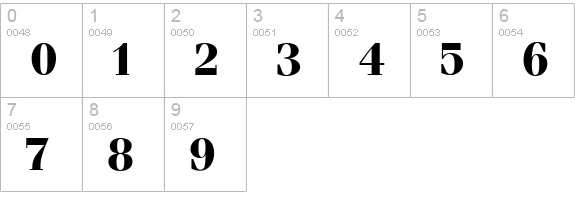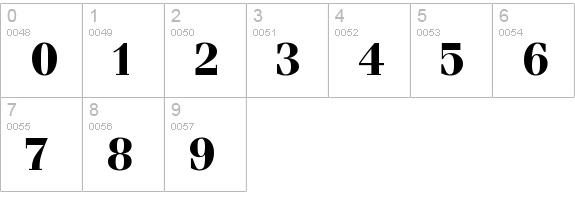
Fenice Bold Font Details
Fenice Bold is a strong, high-contrast variant in the Fenice typeface family \xE2\x80\x94 well suited to headlines, attention-grabbing titles, and strong calls-to-action.
Fenice Bold font is a striking and versatile typeface that exudes confidence and elegance. With its bold and modern design, Fenice Bold is perfect for creating eye-catching headlines, posters, branding materials, and more. The clean lines and sharp edges of this font make it ideal for both digital and print projects, adding a touch of sophistication to any design. What makes Fenice Bold font even more appealing is that it is available for free download at FontsMarket.com. This means that you can easily access this high-quality font without having to spend a dime. Whether you're a designer looking to add a bold statement to your projects or a business owner in need of a professional font for your marketing materials, Fenice Bold is the perfect choice. Download it today and elevate your designs with this stunning typeface.